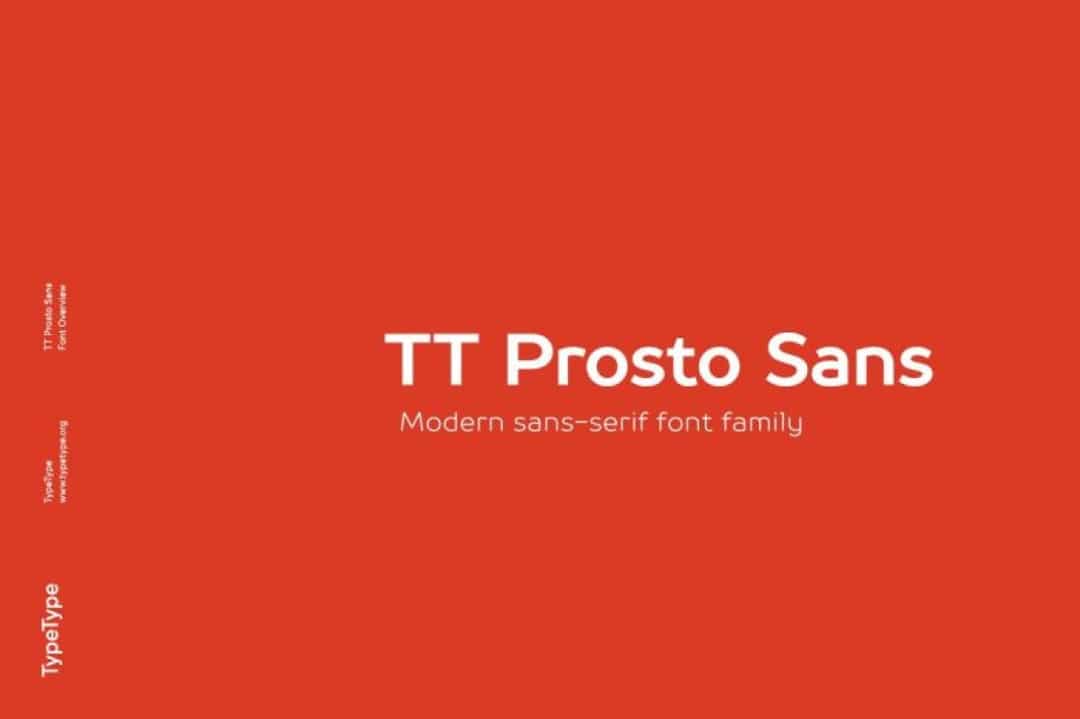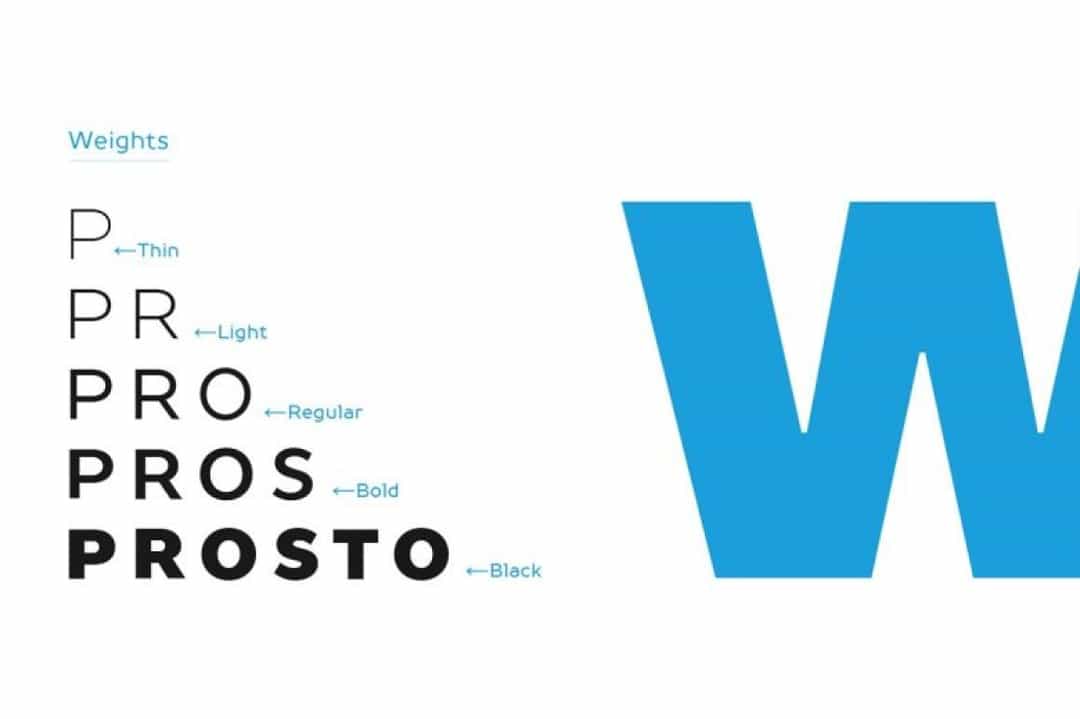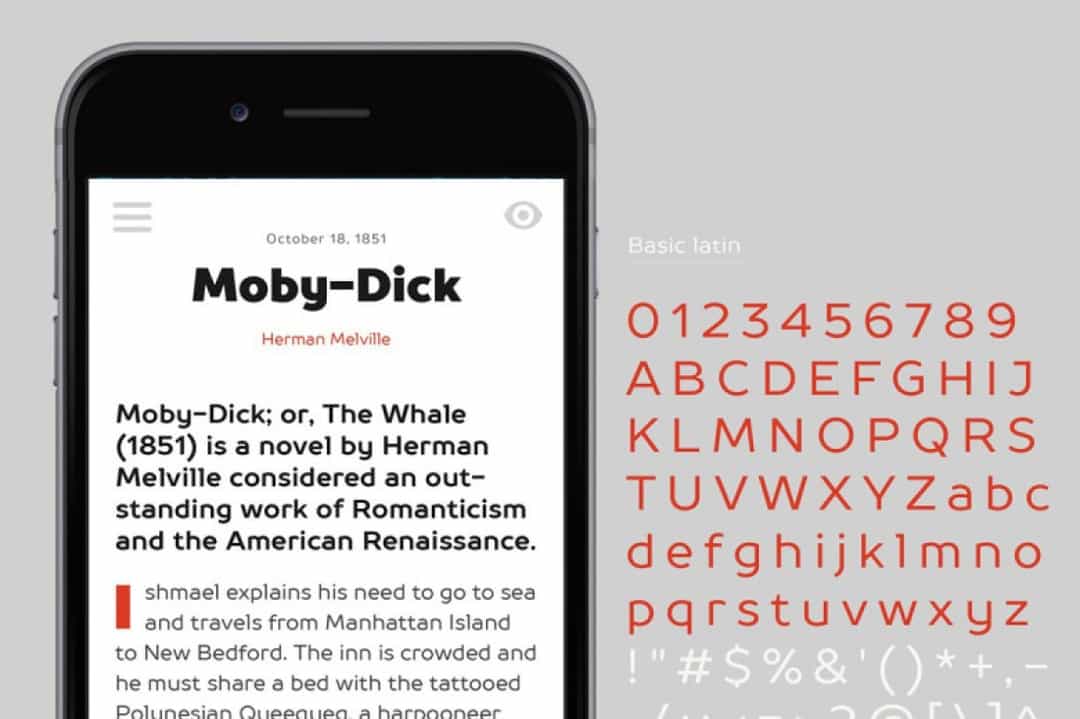
TT Prosto Sans is an essential font family, ideal for any event and use case. These fonts can be found almost everywhere imaginable from modern open grotesque styles to the more classic font family formula comprising Thin, Light, Regular Bold Black Italics; making TT Prosto Sans your partner in every project!